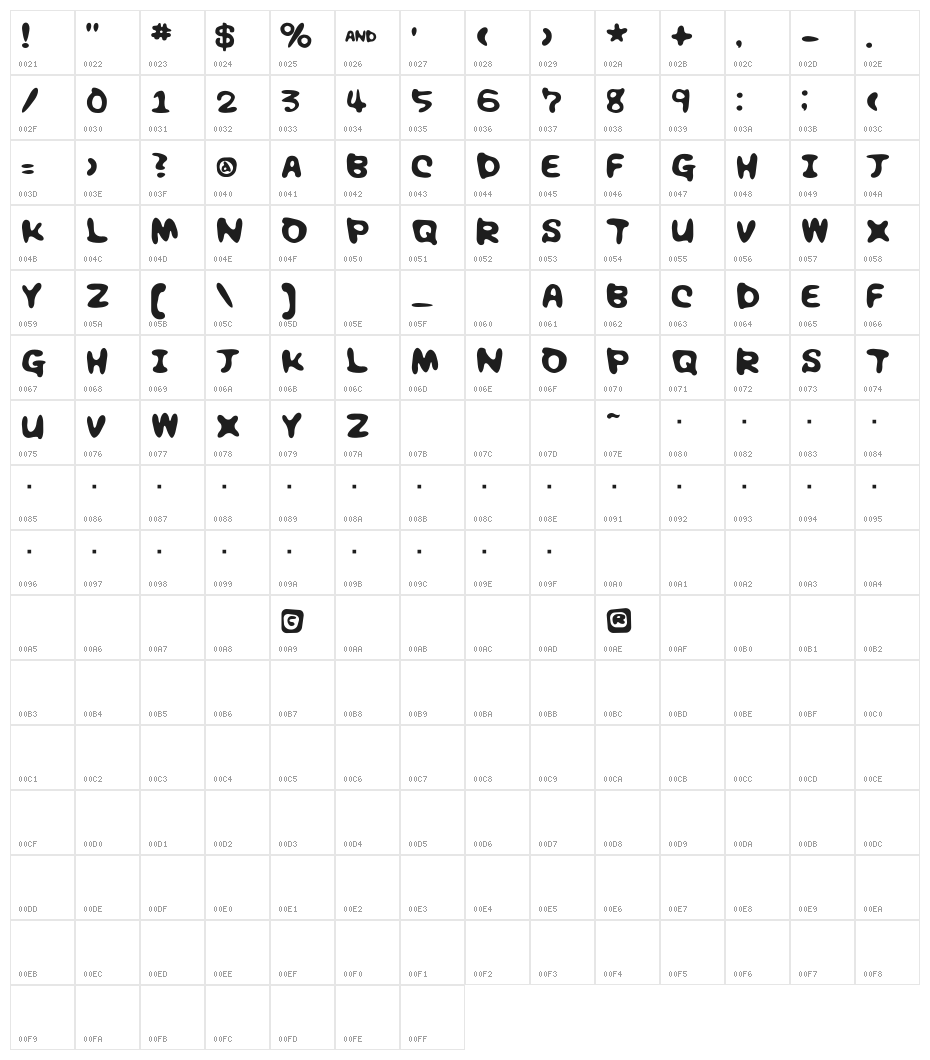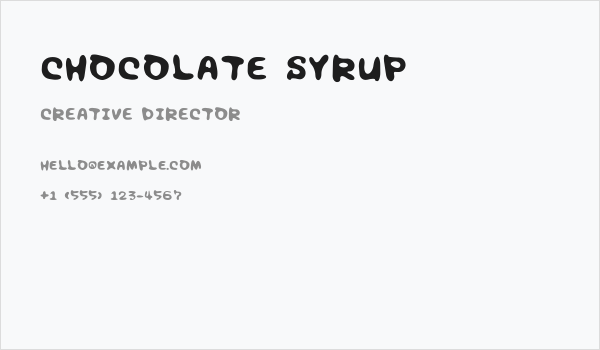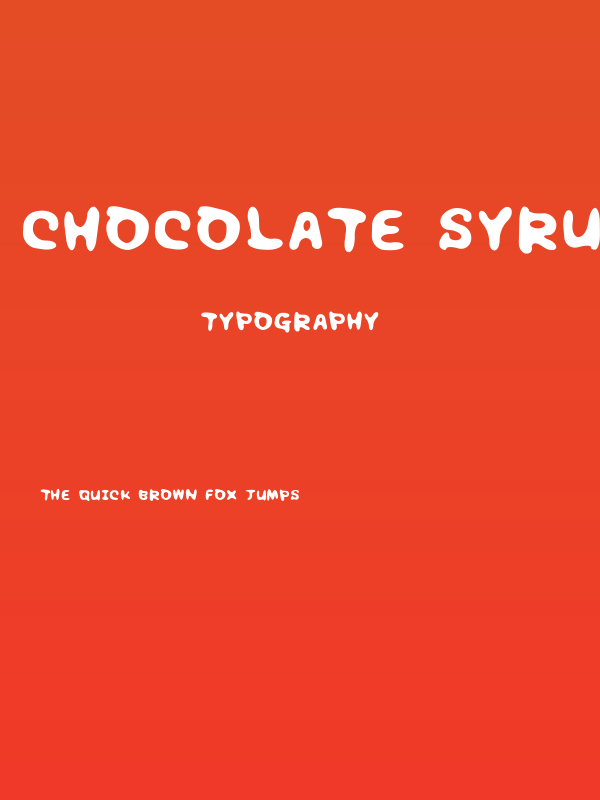
Chocolate syrup Font
Chocolate syrup Description
This playful and bold font features thick, rounded characters that give off a whimsical and fun vibe. The letters appear as if they are melting or dripping, reminiscent of chocolate syrup, which adds a unique and eye-catching element. The font maintains a consistent weight throughout, with smooth curves and a slightly irregular shape that enhances its playful nature. The numbers and special characters follow the same style, ensuring a cohesive look across all text elements. This font is perfect for projects that require a touch of humor and creativity.
| Proposed Projects | Ideal for children's book covers, playful branding, food packaging, and creative posters. |